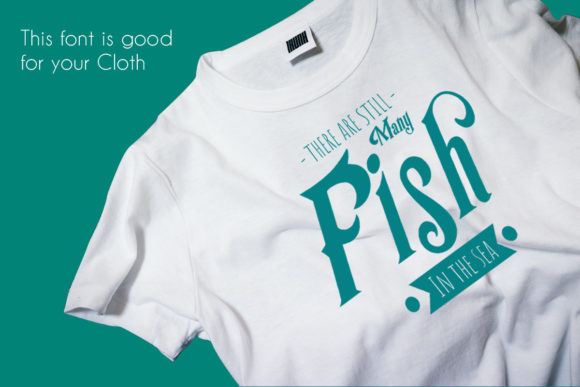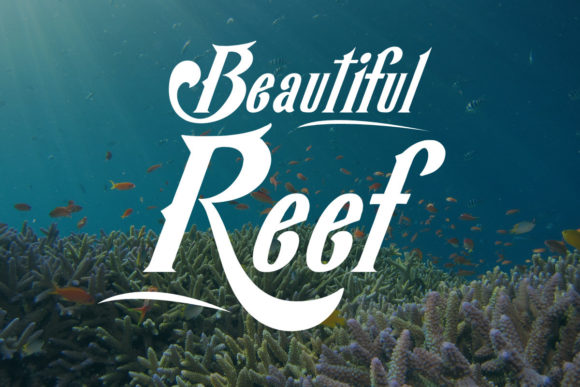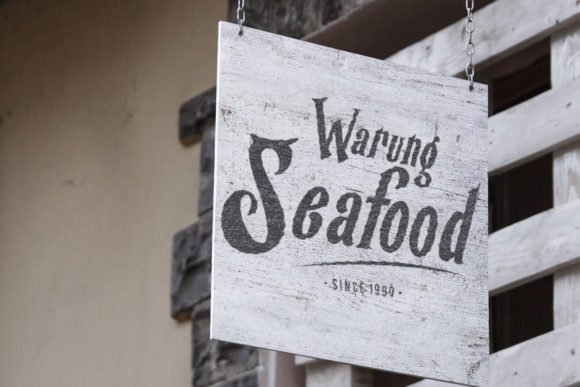
Introduction to Kekfish Font
Kekfish is an authentic display font that is readable, bold and stylish.
It is defined by smooth curves and is perfect for fashion branding or editorial designs Add it confidently to your projects, and you will love the results.
Why Choose Kekfish Font?
Kekfish Font offers exceptional quality and versatility, making it a valuable addition to your design toolkit. Whether you’re creating for personal projects or commercial use, Kekfish Font delivers professional results.